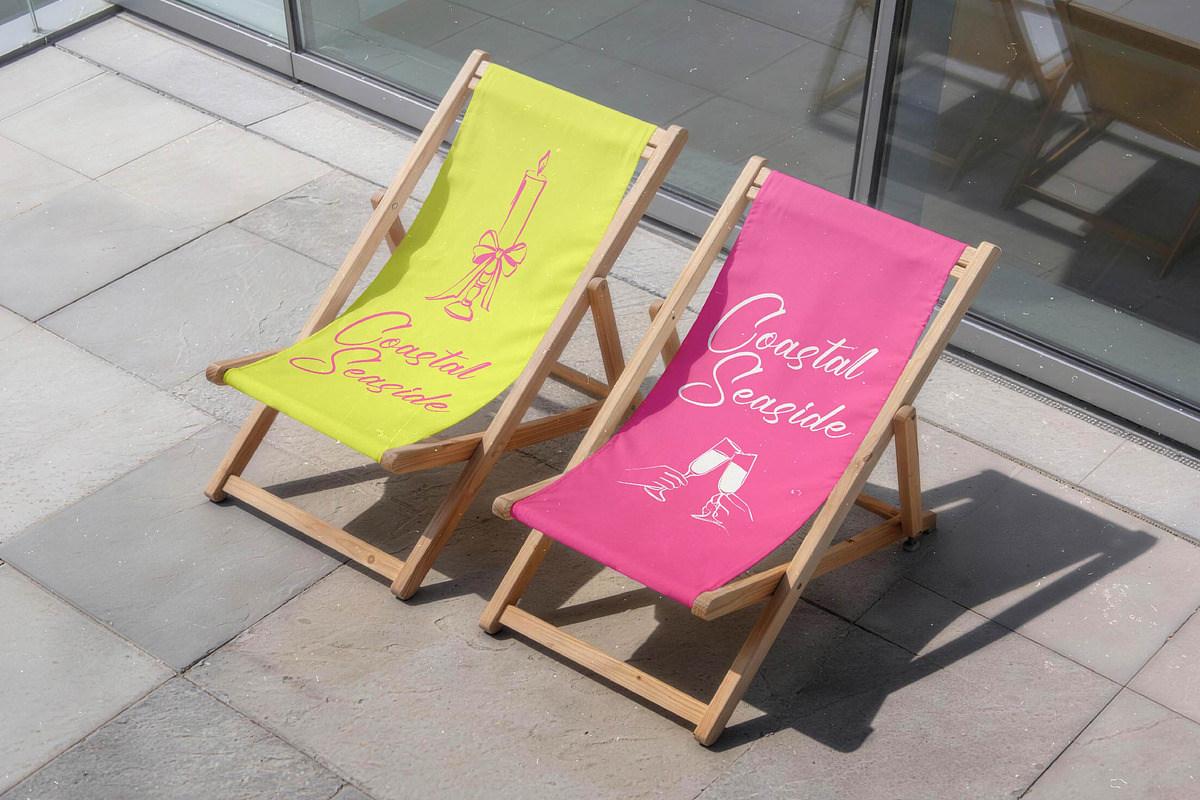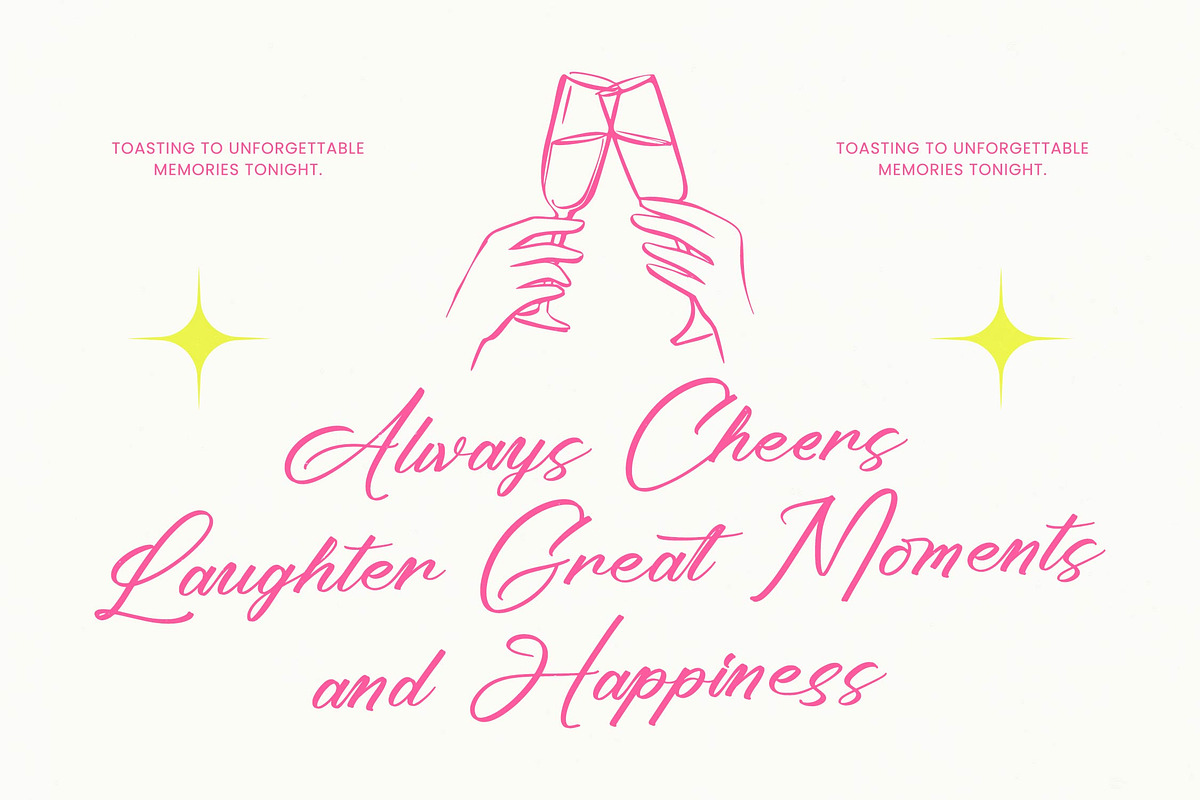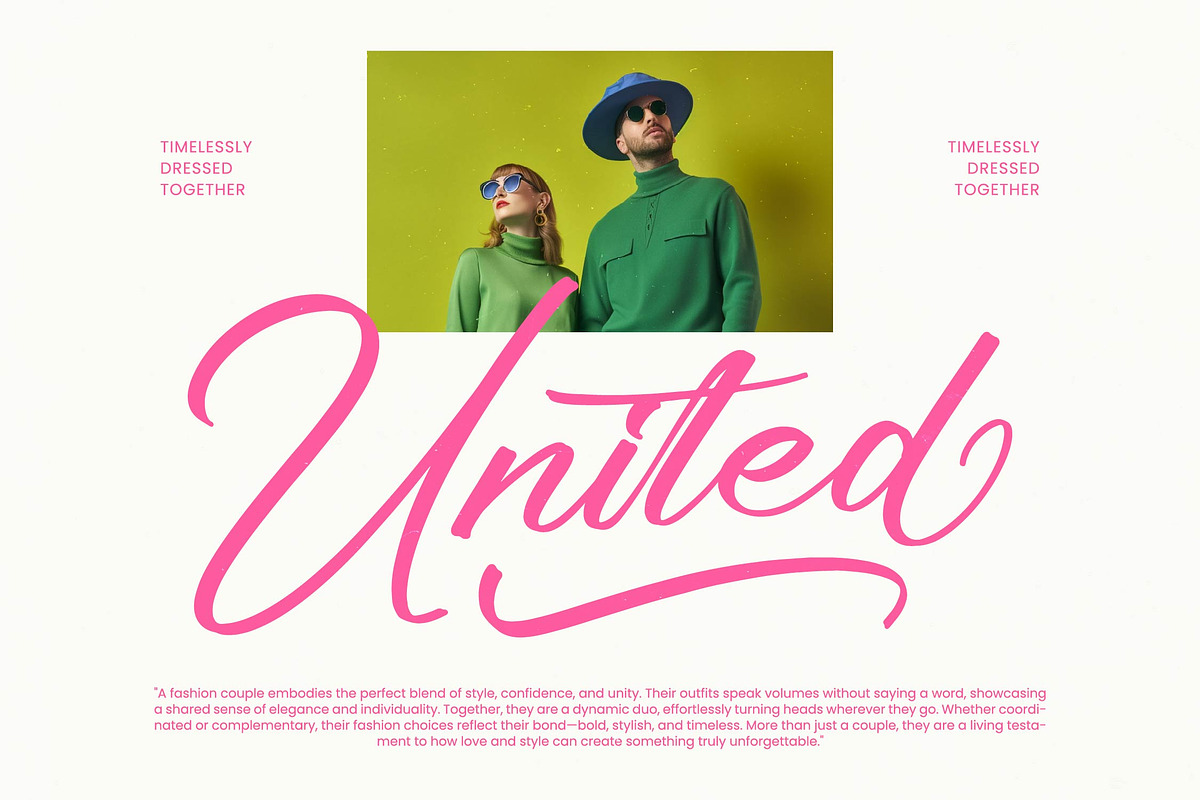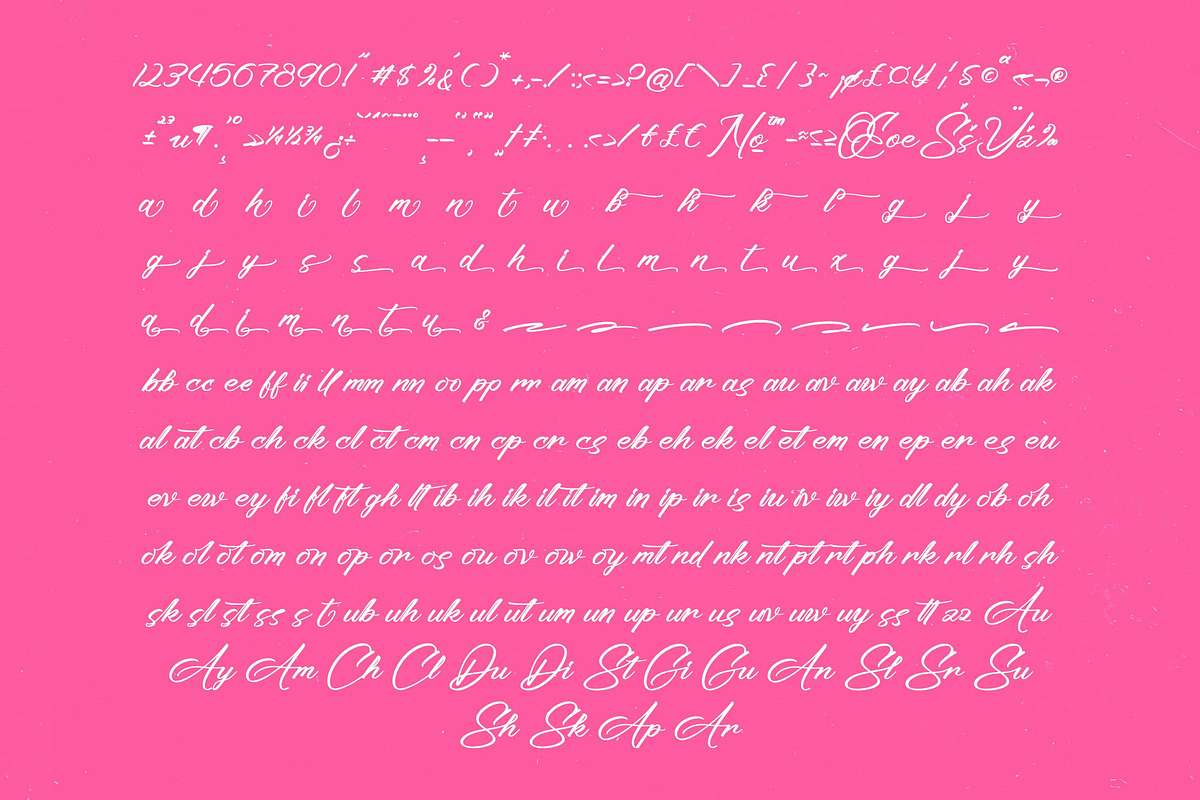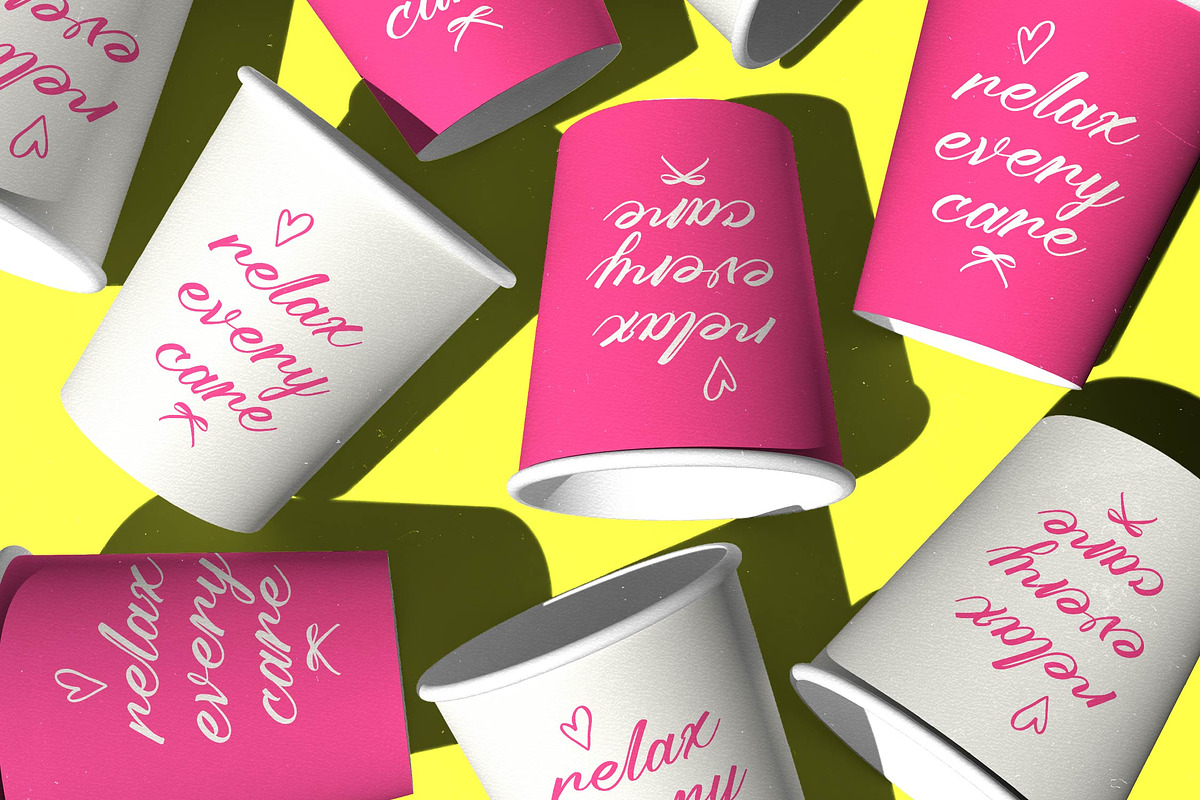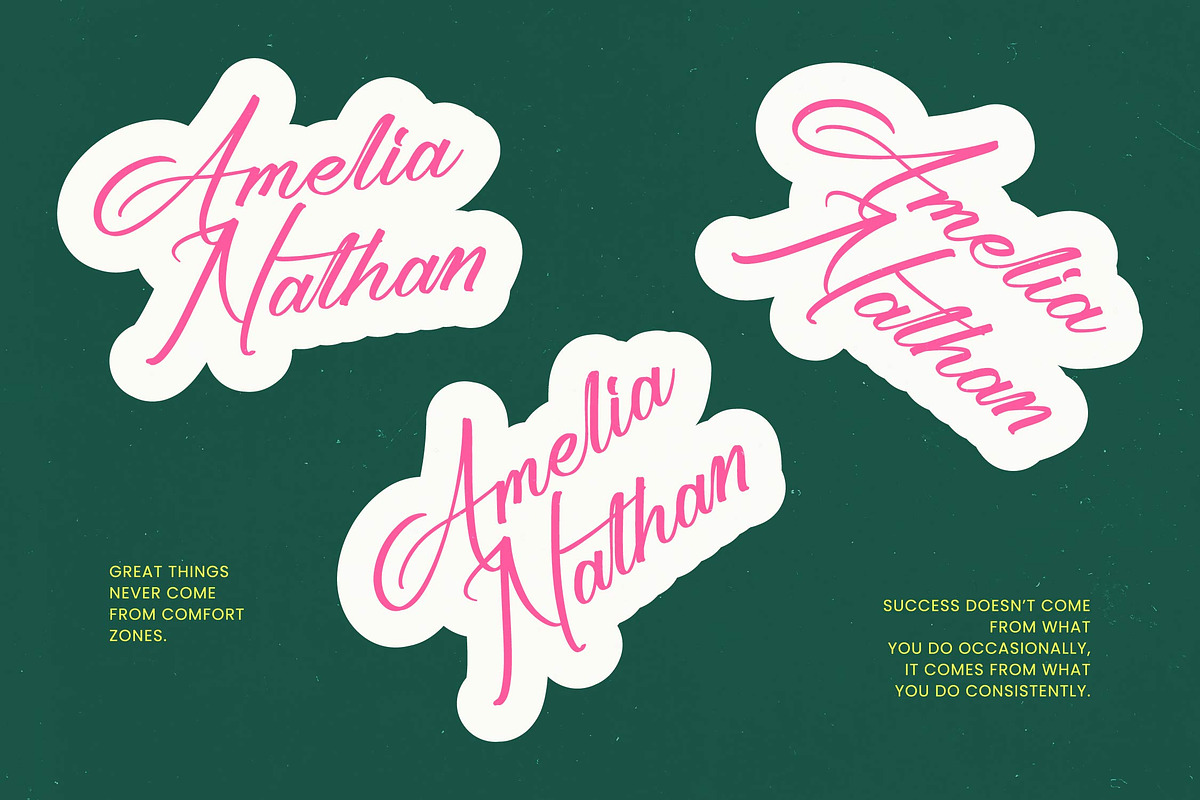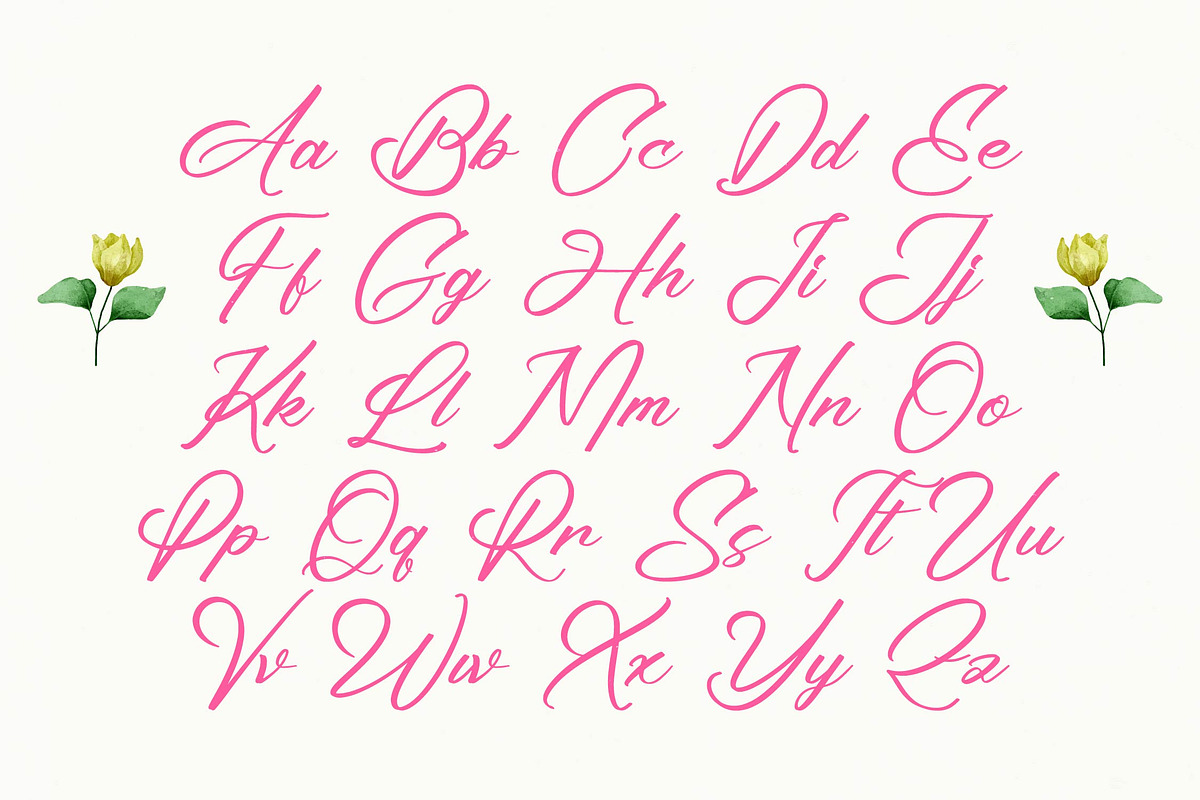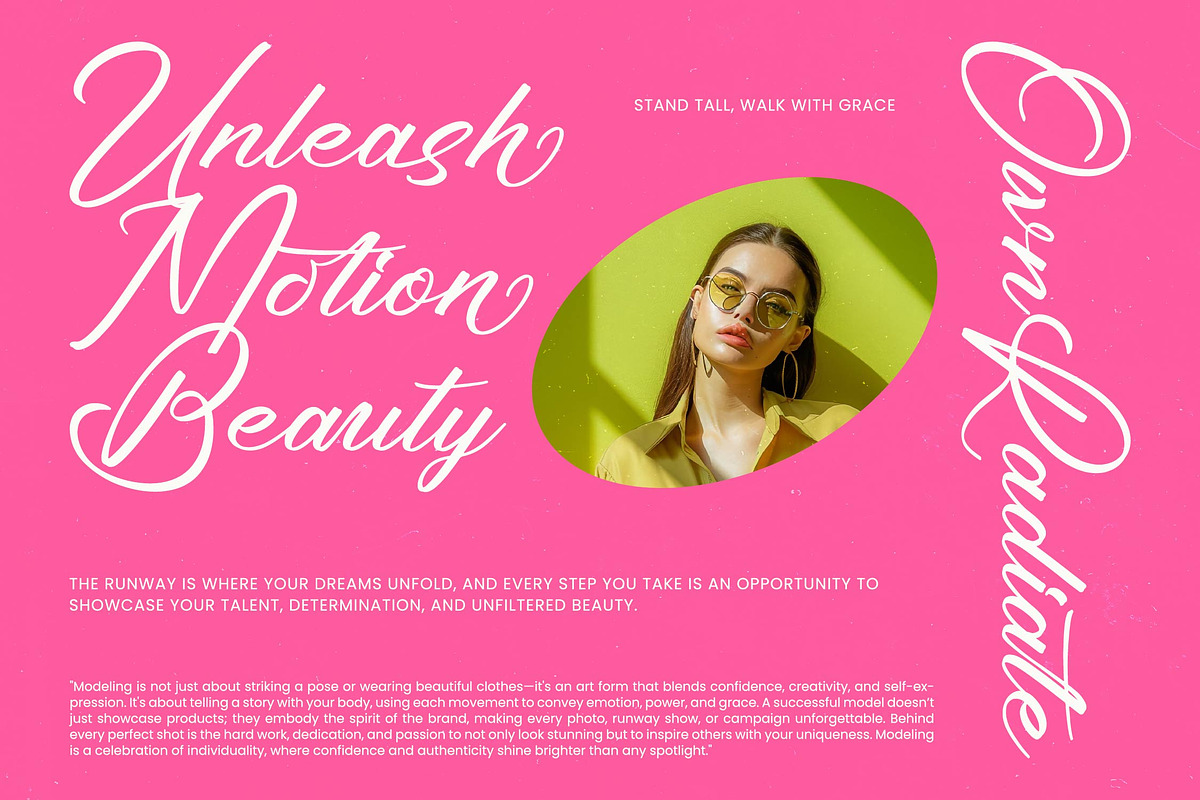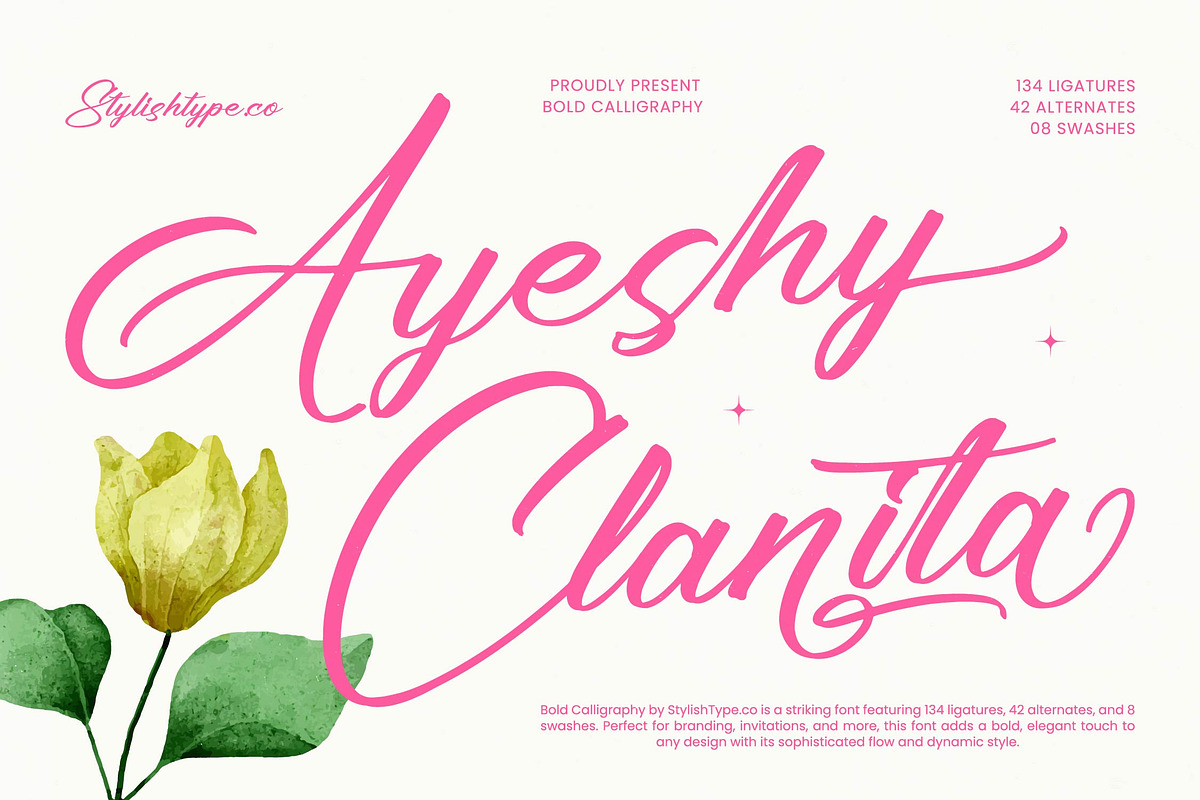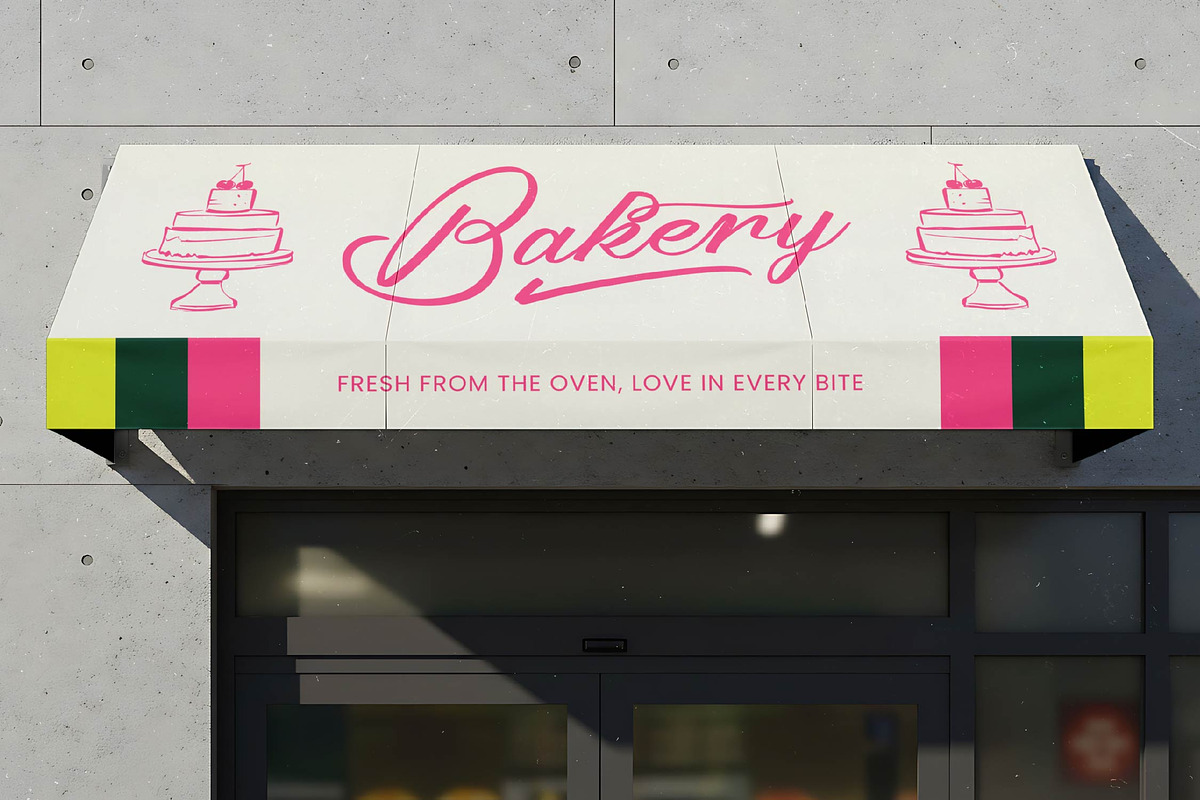
Ayeshy Clanita Bold Calligraphy
Ayeshy Clanita - Bold Calligraphy , Experience the captivating allure of Ayeshy Clanita, a striking script that breathes life into every design with its bold, fluid strokes. It captures the essence of romantic sophistication, making every word feel like a handwritten masterpiece designed for lasting impressions.
Drawing inspiration from the delicate dance of traditional ink on parchment, this font mirrors the organic rhythm of natural handwriting. Its origins lie in the desire to bridge the gap between classic calligraphy and contemporary flair, resulting in a visual language that is both timeless and fresh for modern creatives.
With a focus on high-impact aesthetics, this luxury typography exudes a sense of effortless grace and professional polish. While it functions as a modern serif display alternative in spirit, it offers the branding impact needed for projects that require an editorial font feel combined with the warmth of a personal touch.
Tapping into the current modern serif trend, this typeface aligns perfectly with the shift toward character-driven typography. It satisfies the growing demand for editorial display fonts that prioritize uniqueness and human connection over sterile, geometric perfection in the digital age.
This versatile script is the ultimate choice for high-end logo design and comprehensive branding suites that demand attention. Whether it is applied to luxury packaging, romantic wedding stationery, or avant-garde fashion layouts, it elevates the editorial quality of any creative endeavor instantly.
The package is rich with technical enhancements including 134 ligatures, 42 alternates, and 8 decorative swashes that provide endless customization possibilities. It also features full multilingual support and international characters, ensuring your message reaches a global audience with consistent elegance.